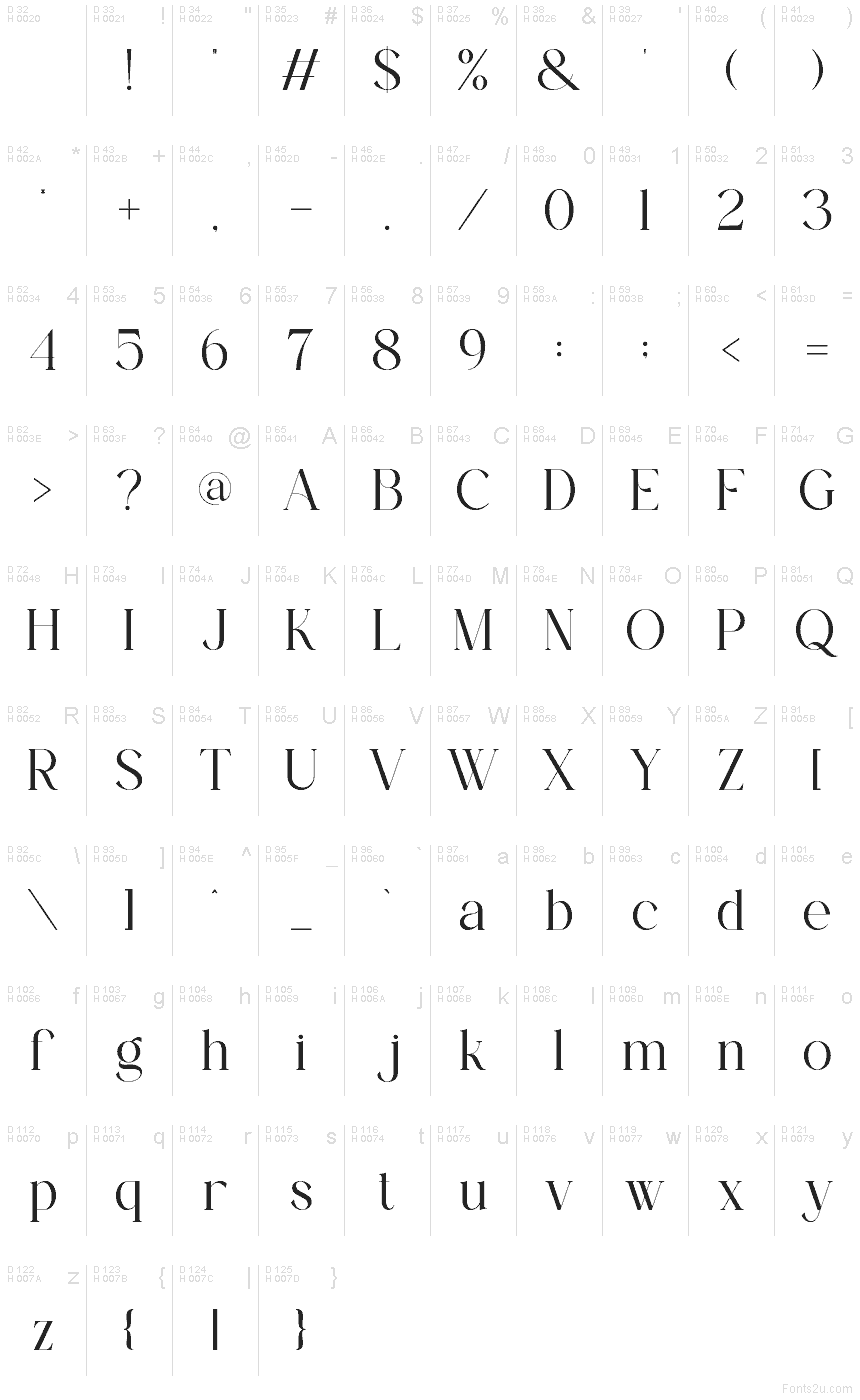
Verune Regular
Verune font by Ermedia Studio is a free high-contrast serif font. Its defining move is the tight dance between razor-thin hairlines and inky, weighty strokes, giving headlines that glossy magazine snap without feeling brittle. Serifs land like precise cuts, while the soft inner curves keep the texture flowing, so you get elegance with actual readability—not just ornament.
Using Verune, your titles carry that couture, editorial sheen that clients ask for but rarely get. It shines on beauty branding, fashion lookbooks, luxury packaging, restaurant menus, event invitations, and website hero graphics. Set it large with a touch of extra tracking and pair it with a quiet neo-grotesk or geometric sans for body copy—this free font does the heavy lifting up top.